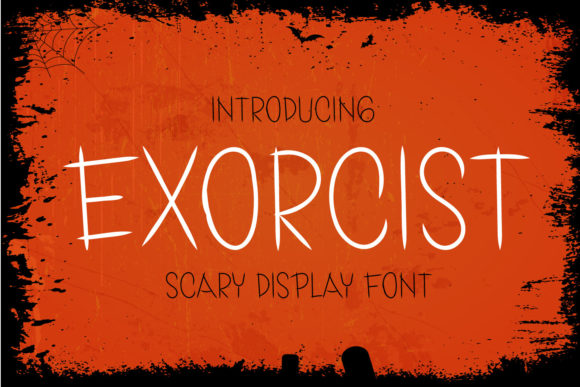
Prepare to be spellbound by Exorcist Font, the ultimate display font that exudes an aura of mystery and intrigue. Inspired by the thrilling genre of film noir, this font is a cinematic masterpiece that will transport your designs to a world of shadows and suspense.
Exorcist Font is the brainchild of Role Type, a foundry renowned for its distinctive and captivating typefaces. This font family is a testament to their artistry, meticulously crafted to evoke a sense of drama and tension. With its unique ligatures and alternates, Exorcist Font offers endless possibilities for creating visually striking designs that will leave a lasting impression.
Whether you're conjuring up posters for a haunting Halloween event or crafting invitations for an October party that's sure to send shivers down spines, Exorcist Font is your perfect companion. Its versatility extends beyond the realm of horror, making it an excellent choice for creating designs with a touch of mystery or an edge of the supernatural.
Unleash your creativity and let Exorcist Font cast its spell on your designs. Its dark and alluring charm will captivate audiences, leaving them spellbound by your creations. Embrace the power of this font and watch as your designs take on a life of their own, enchanting all who behold them.